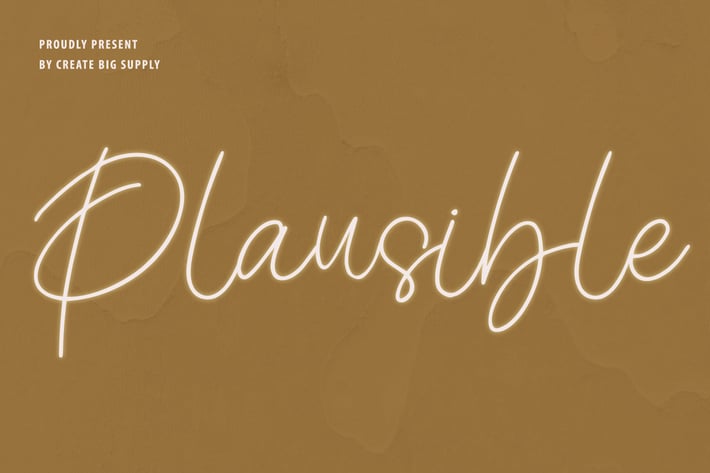
Plausible Chic Handwritten Calligraphy Font
Plausible is a chic handwritten calligraphy font crafted for elegance and refinement. Its graceful swashes and smooth letterforms make it ideal for wedding stationery, beauty branding, luxury packaging, and handwritten-style logos.
Combining modern charm with timeless flow, Plausible brings personality and sophistication to every word.
Key Features:
- Stylish calligraphy with natural handwriting flow
- Ideal for weddings, logos, and personal branding
- Elegant strokes and refined details
- Great for packaging, social media, and quotes
Plausible adds an effortlessly graceful touch to your designs—perfect for modern, stylish creatives.